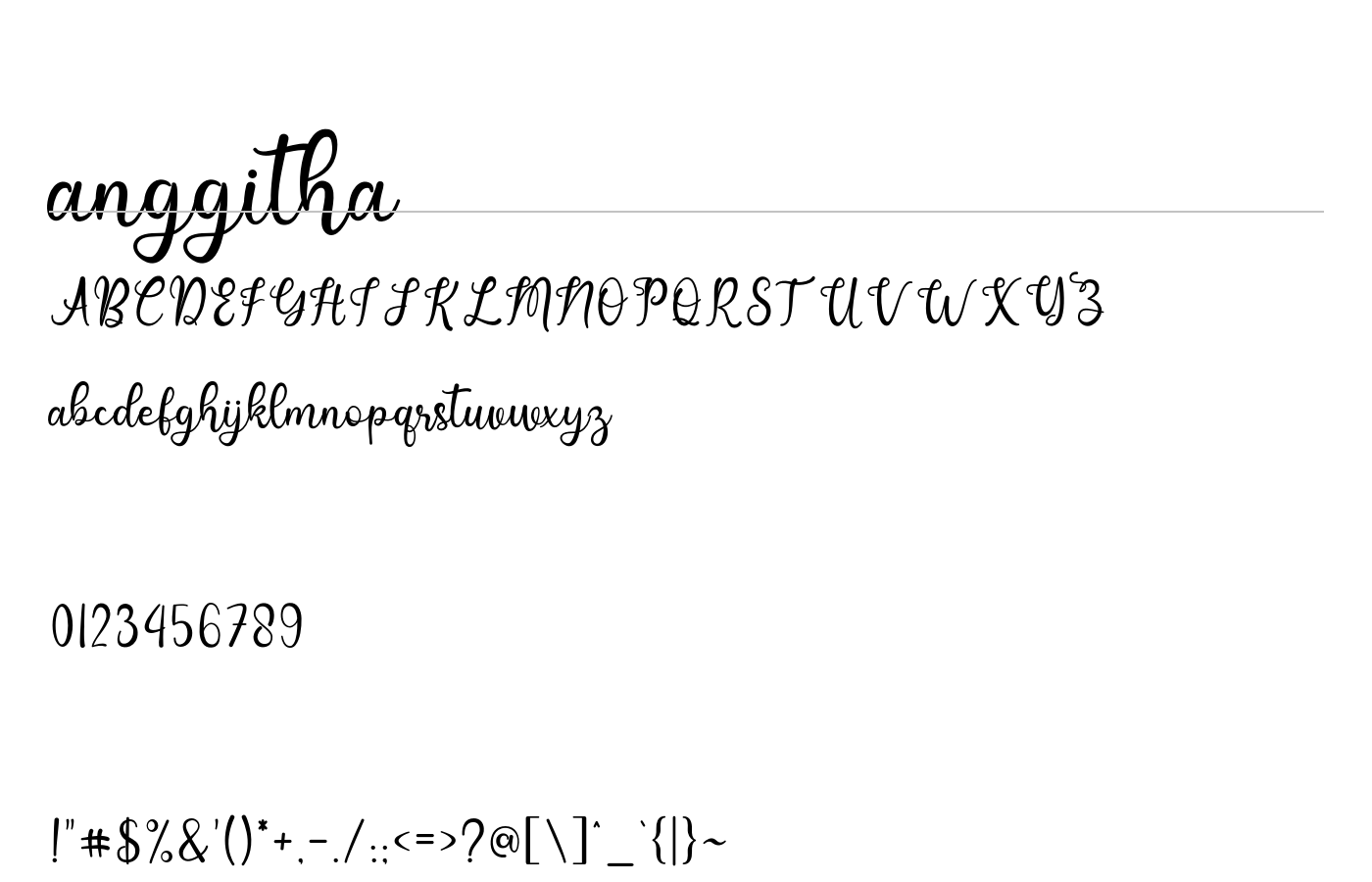
Anggitha Font is a delicate and charming script typeface with a handwritten feel, featuring smooth, flowing letterforms and elegant curves. Its light weight and narrow width make it perfect for adding a touch of sophistication and personality to invitations, greeting cards, or feminine branding. This font excels in designs that require a graceful yet approachable style, especially in headlines or decorative text.
anggitha Font
About anggitha Font
| Font family | anggitha Font |
| Designer | sam sugiharto |